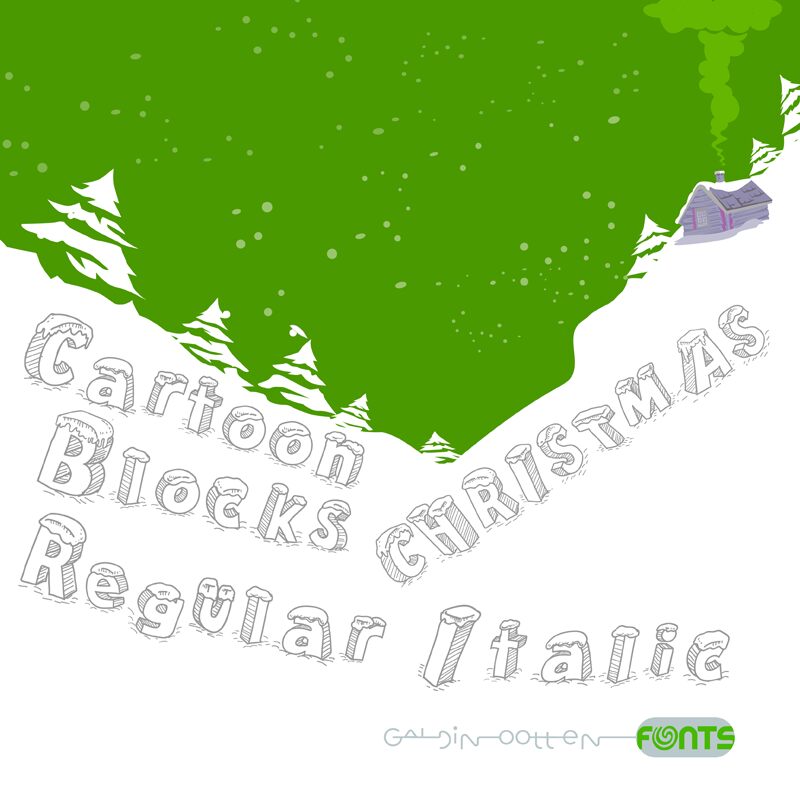
Cartoon Blocks Christmas
Cartoon Blocks Christmas font by Galdino Otten Fonts evokes festive charm with its decorative and whimsical appeal. Combining a cartoon style with playful elements, this free font brings life to your creative projects. Its bold weight further emphasizes the quirky look and adds value to any typographic work.
This font is suitable for holiday-theme posters, invitations, greeting cards, social media posts, packaging design, merchandise branding, product labels, banners and signages. It can also be used in mobile or web applications artwork as well as pretty much any other occasion or object related to Christmas events.